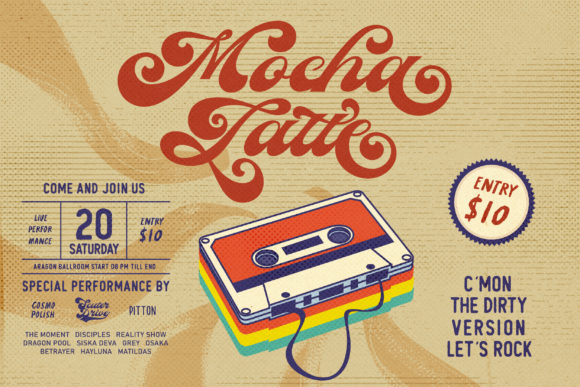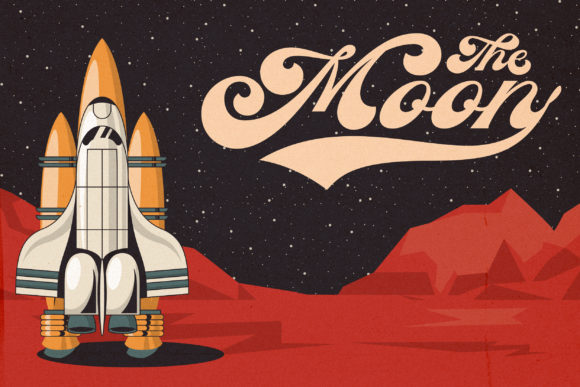
The Candy and Boy Font
db-ku.com - Script & Handwritten -- The Candy and Boy is a retro styled handwritten font. Flowing and elegant, this font is incredibly versatile, so add it to each of your favorite ideas and notice how it makes them stand out!